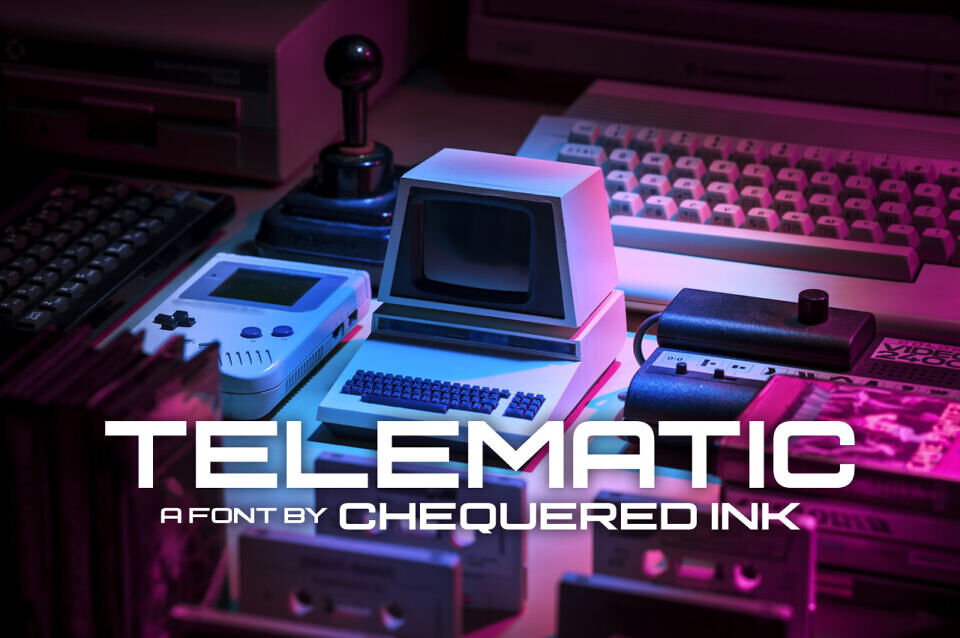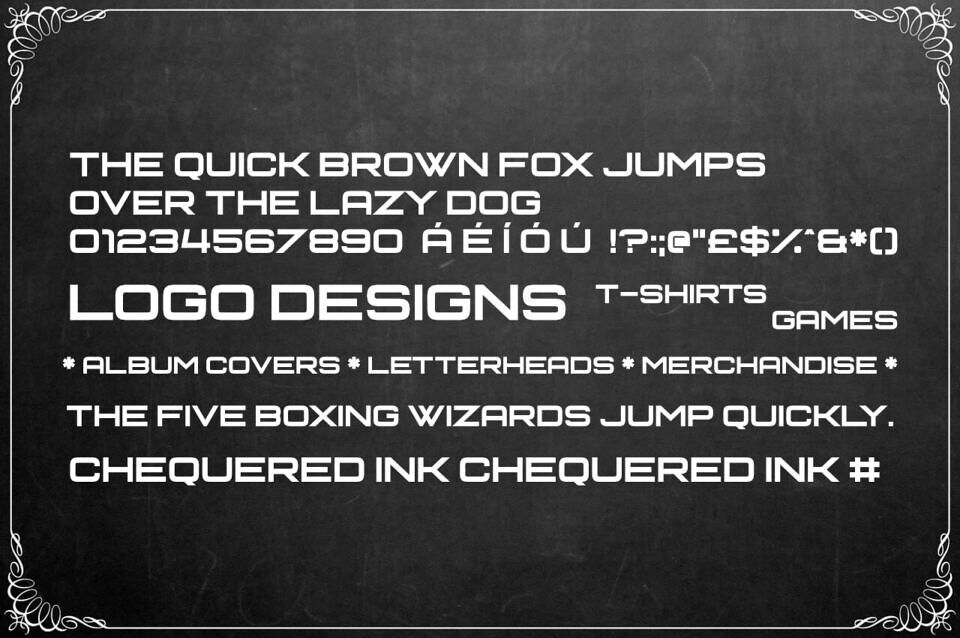
Telematic Font
Telematic is a sophisticated geometric sans-serif typeface by Chequered Ink, designed with a sharp focus on symmetry and industrial precision. Featuring clean, unadorned strokes and a balanced structure, this font ensures maximum legibility for both digital and print applications. Its modern, minimalist aesthetic is perfect for tech branding, professional logos, and sleek editorial layouts.